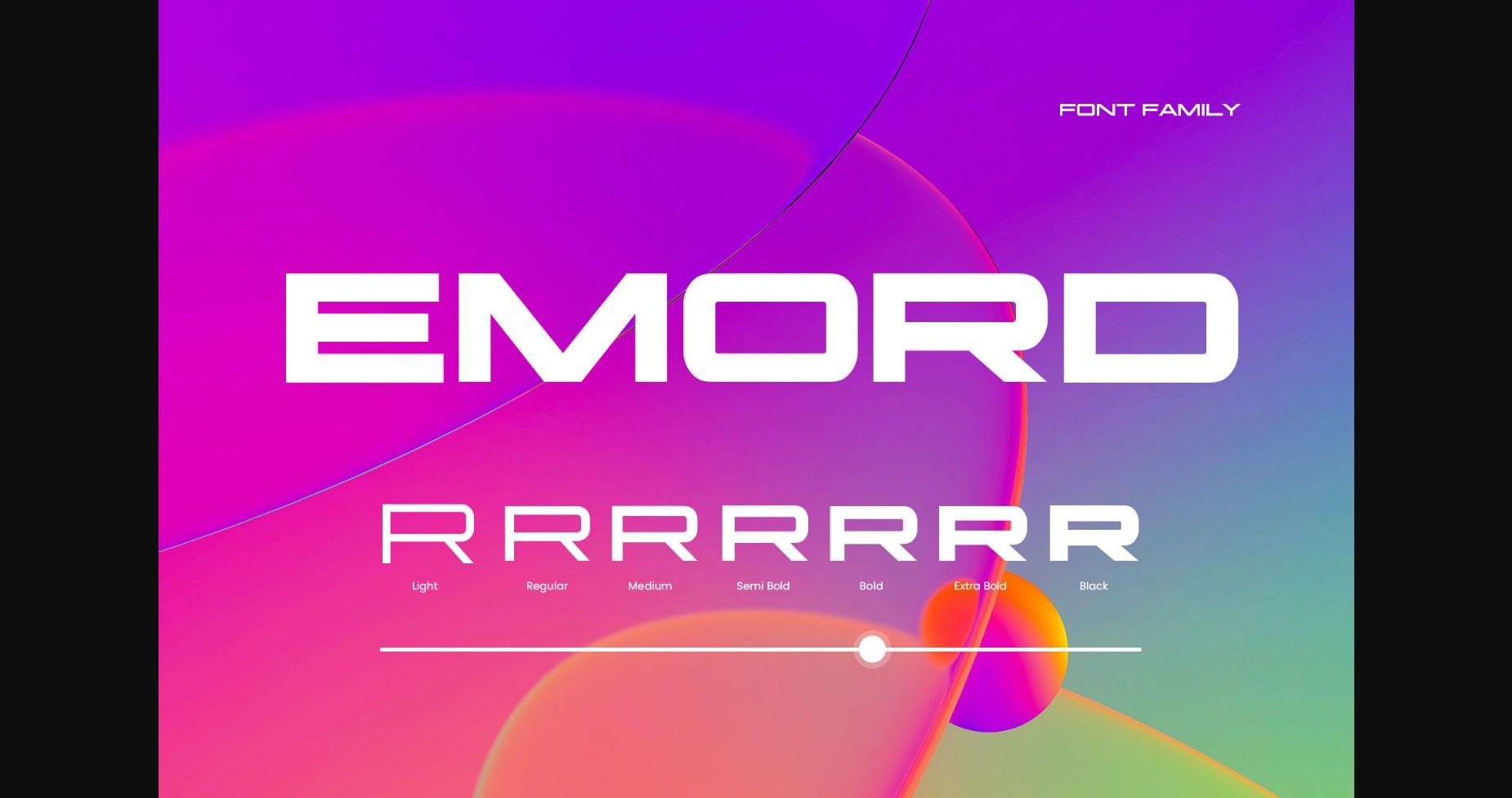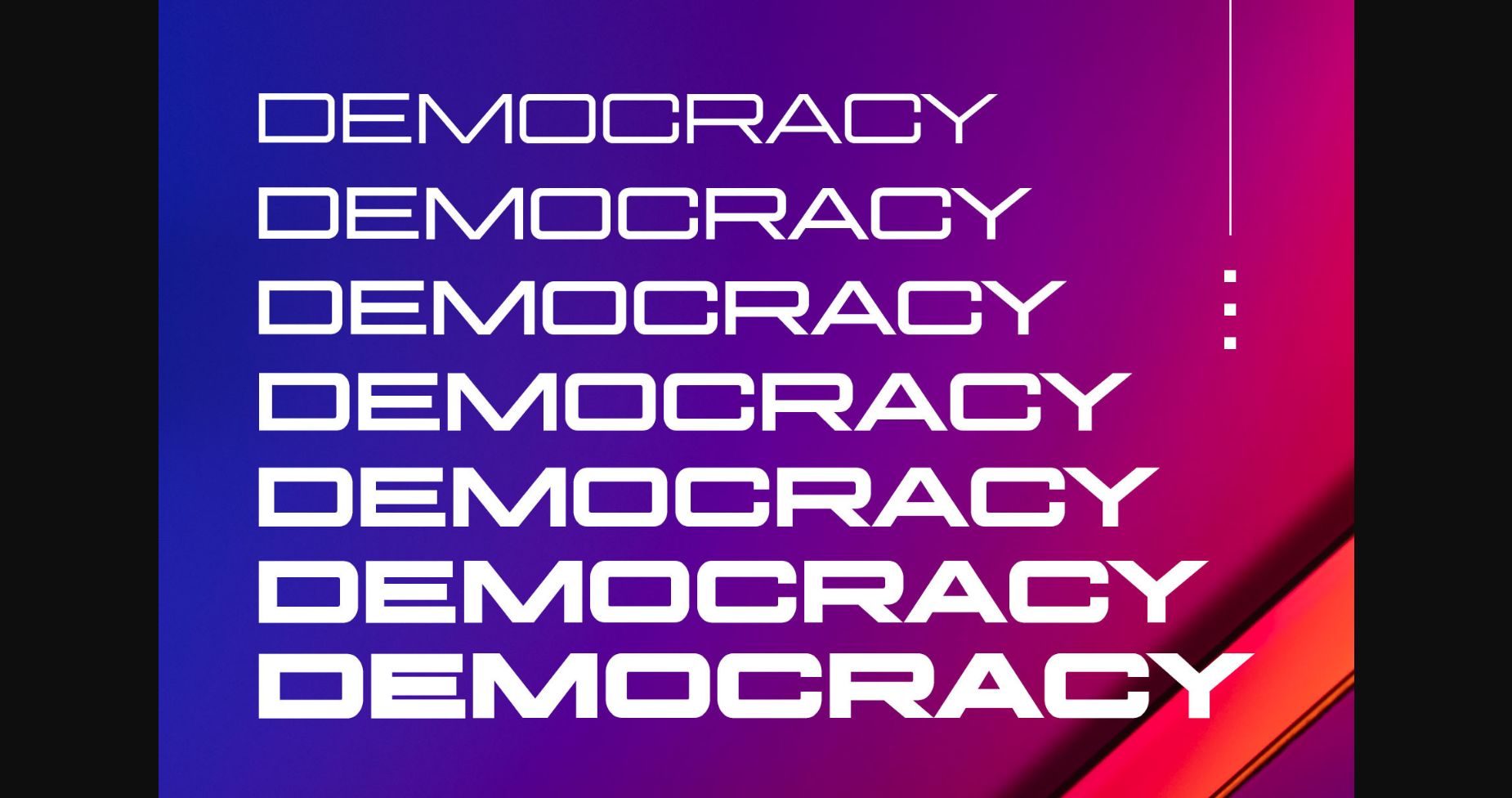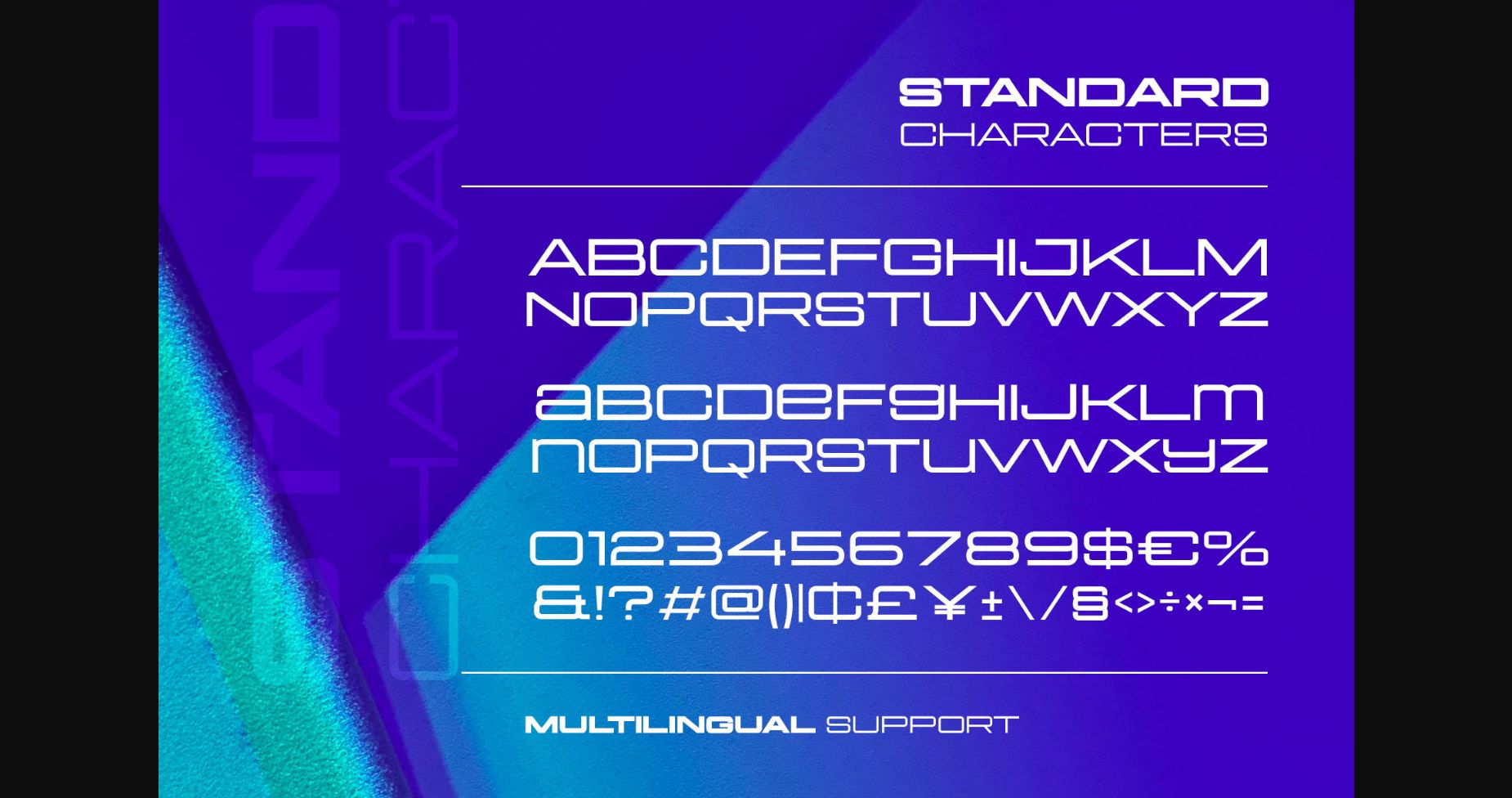
About Emord Font
Emord is a display font inspired by current techno-style and developed as a font family. Created with a strong letterform to represent the future, sporty, elegance, and strength.
This family consists of 7 weights that suit your needs, as a display or paragraph text at the same time. Emord is an all-caps font which perfect for titling, short body text, books, quotes, logotypes, etc.